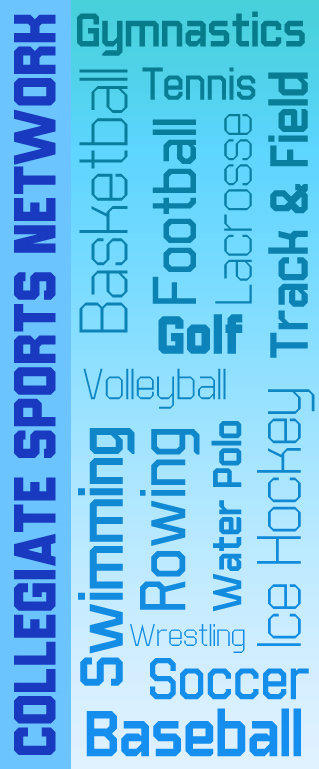
Academician Senior
Academician: 1. a member of an association or institution for the advancement of arts, sciences, or letters. 2. a follower or promoter of the traditional trends in philosophy, art, or literature.
Yes, the creation date is correct. This one has been sitting around a while. There have been many fontstructions released with the octagonal style, but I'm surprised someone hasn't released something utilizing the 1:2 filter to achieve the A, M, N, V, W slopes. The Sports Competition was a good excuse to release the whole family. This font was originally inspired by Antyp and his Skipper series, which apparently isn't online anymore. :-( It got me into thinking about the possibility of making a typeface I could actually use normally.
Wow! This is a lot better than many fonts I've seen like this!
This is my favorite of the four, but I like them all! 10/10 + fave